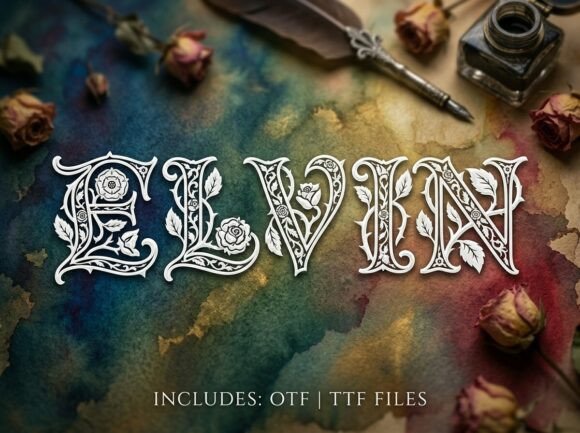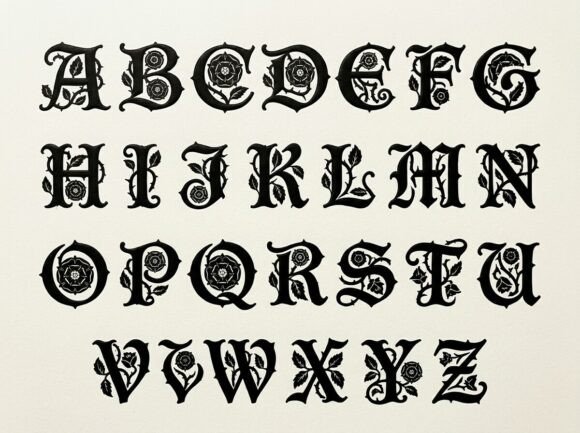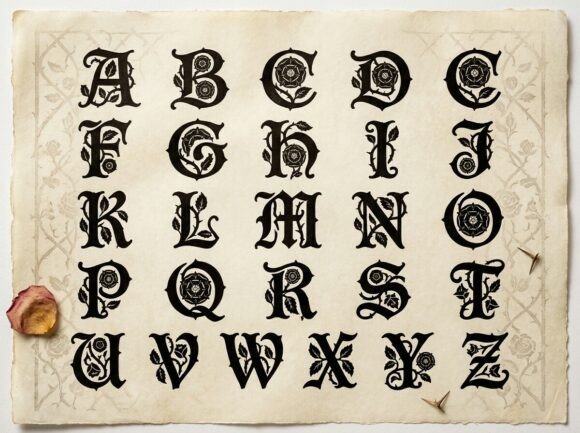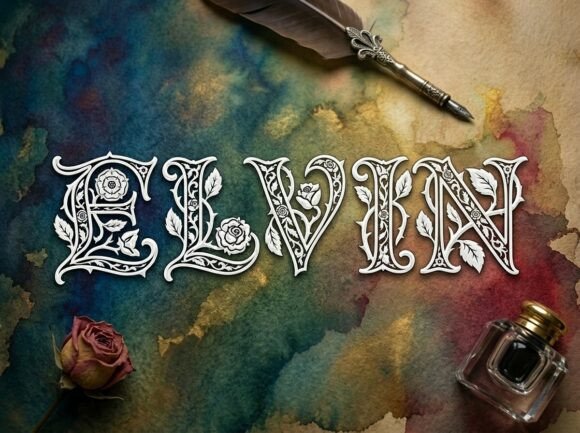
Introducing Elvin Font: A Stunning Decorative Display Font
Are you tired of using the same old fonts for your creative projects? Look no further than Elvin Font, a unique and artistic display font that’s sure to turn heads. Designed to be the center of attention, this font features a strong visual personality and versatile design that’s perfect for creators who want to break away from the ordinary.
What Makes Elvin Font Special?
Elvin Font is a decorative display font that’s specifically designed for high-impact headlines, logos, and decorative initials. With its unique artistic elements and strong visual personality, this font is perfect for creators who want to add a touch of elegance and sophistication to their work.
One of the standout features of Elvin Font is its versatility. This font is perfect for bold headlines, artistic logos, and creative packaging, while maintaining a professional and polished finish. Whether you’re working on a branding project, a marketing campaign, or a personal creative project, Elvin Font is the perfect choice.
Important Note: All-Caps Display Typeface
Before you purchase Elvin Font, it’s essential to note that this font is an ALL-CAPS (Uppercase Only) display typeface. This means that it does not include lowercase letters. Elvin Font is specifically designed for high-impact headlines, logos, and decorative initials where every letter is a work of art.
This unique design feature allows for maximum visual impact and flexibility, making it perfect for creative projects where you want to make a statement. However, it’s essential to consider this limitation before making a purchase.
Who is Elvin Font For?
Elvin Font is perfect for a variety of creative professionals, including:
- Graphic designers looking for a unique and artistic font for their branding and marketing projects
- Log designers who want to create eye-catching and memorable logos
- Crafters and DIY enthusiasts who want to add a touch of elegance and sophistication to their handmade projects
- Marketing and advertising professionals who want to create high-impact headlines and campaigns
Tips for Using Elvin Font
To get the most out of Elvin Font, here are a few tips:
- Use Elvin Font for headlines and titles to add visual impact and emphasis
- Pair Elvin Font with a simple sans-serif font for body text to create contrast and visual hierarchy
- Use Elvin Font for logos and branding to create a unique and memorable identity
Elvin Font is a stunning decorative display font that’s perfect for creators who want to break away from the ordinary. With its unique artistic elements, strong visual personality, and versatile design, this font is perfect for a variety of creative projects. Whether you’re a graphic designer, logo designer, crafter, or marketing professional, Elvin Font is a great choice for adding a touch of elegance and sophistication to your work.